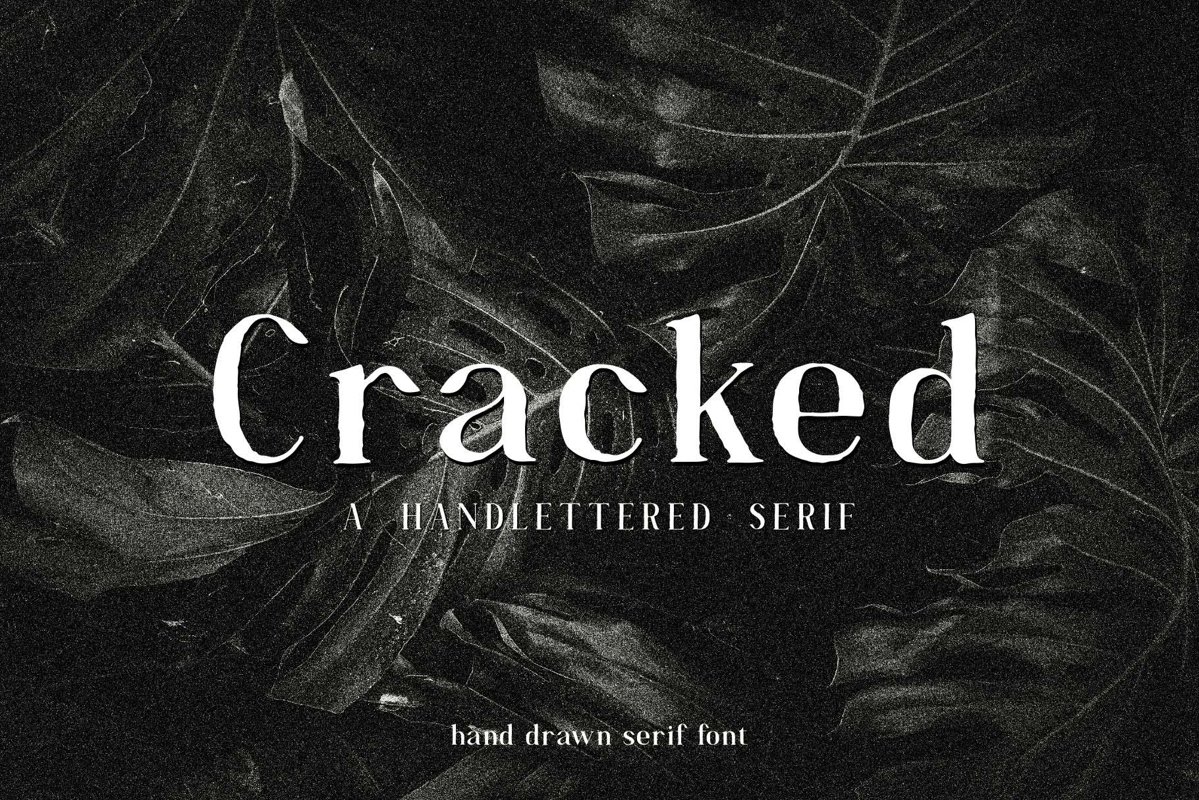
Cracked//A Handlettered Serif
Cracked
Cracked is a handlettered serif font Regular. It's a serif that isn't too stiff with soft, feminine, hand-drawn touches. Use this font for your next logo, or spaced out nicely on your next Instagram inspirational quote.Each variation was drawn separately and has unique qualities to it. I think Cracked Thin in all caps might be my favorite. The downloadable file includes TTF, OTF font files. Numbers and basic punctuation are included